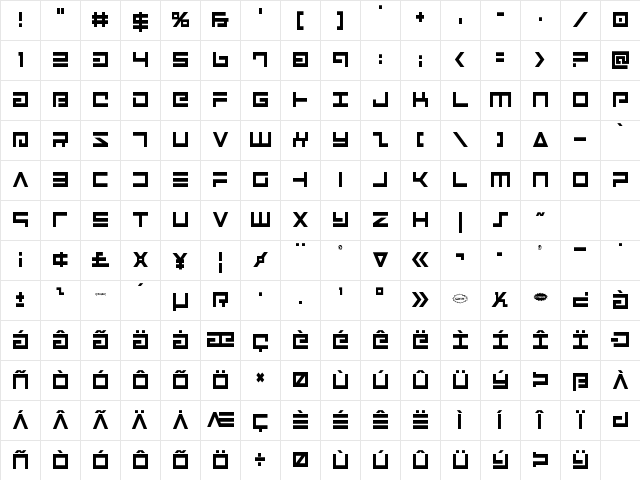
Complete Avenger Condensed glyph index. Displaying only characters natively supported by Avenger Condensed font.
Avenger is a composed and adaptable typeface that performs quietly and consistently across a wide range of design contexts. Its narrow stance lets it pack a punch even in space-constrained designs.